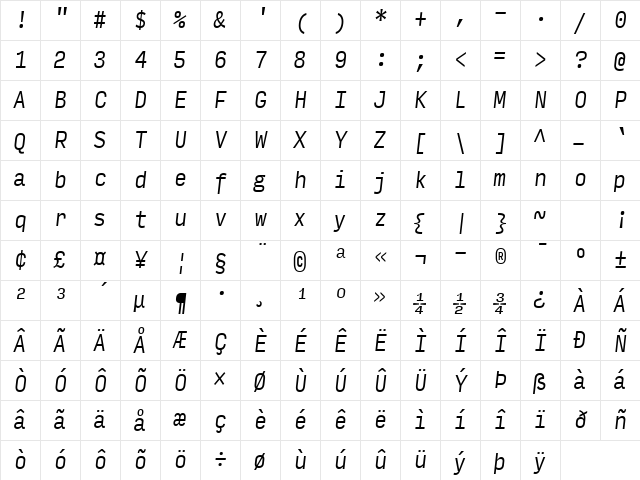
Complete Input Mono Condensed Light Italic glyph index. Displaying only characters natively supported by Input Mono Condensed Light Italic font.
Input Mono Condensed uses fixed-width spacing throughout, giving it the structured, systematic character associated with coding environments and technical documentation. The slanted form adds forward momentum and visual energy. Its slender proportions lend an understated elegance to any composition.